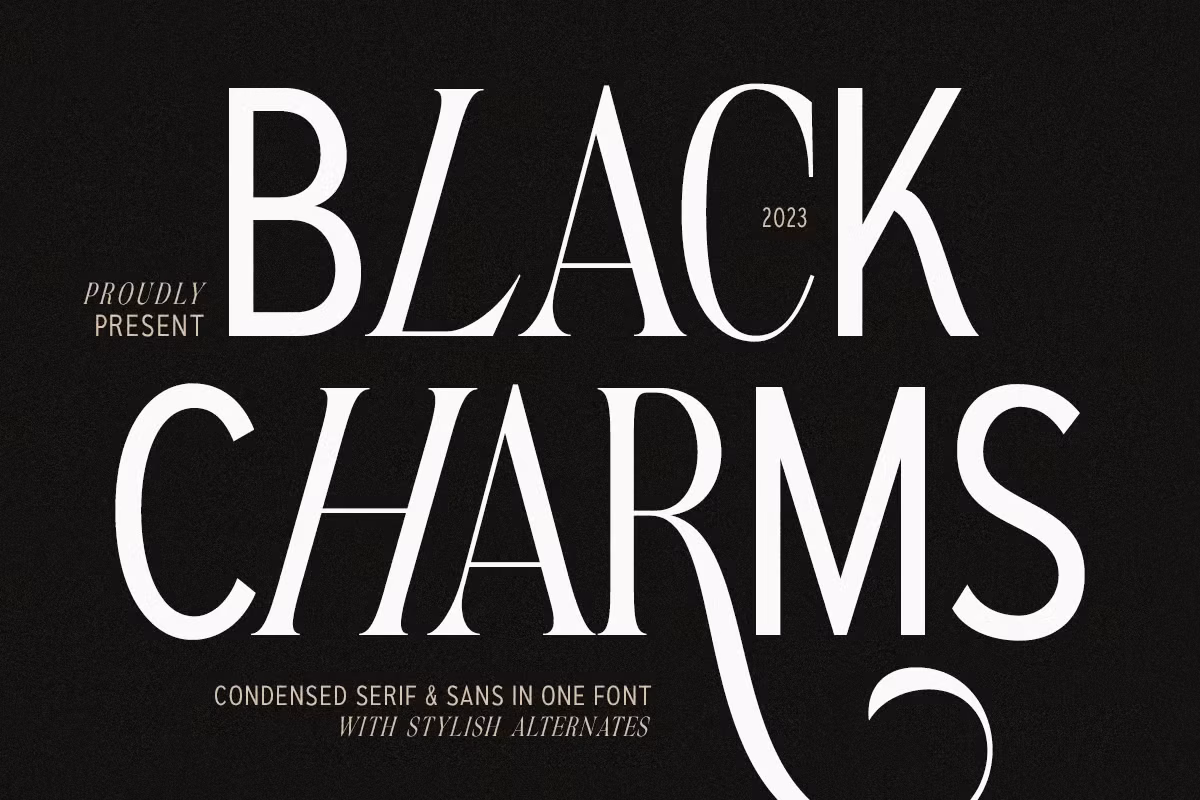
Black Charms - 2 in 1 Condensed Font Free Download
Black Charms - 2 in 1 Condensed Font Free Download is a bold and versatile typeface designed to make a strong statement in any design. This unique 2-in-1 condensed font combines two different styles – a sleek, modern sans-serif and a bold, strong display font – offering you flexibility in creating impactful logos, branding, headlines, and promotional materials. Its condensed structure ensures that your message is clear and powerful, while the combination of styles adds dynamic character to your projects. Whether you're working on a creative campaign, a professional brand, or a modern advertisement, Black Charms - 2 in 1 Condensed Font Free Download lets you explore its striking design in personal projects before purchasing a commercial license. Elevate your designs with this powerful, multi-functional font.